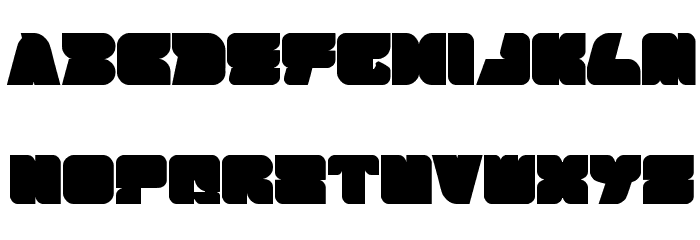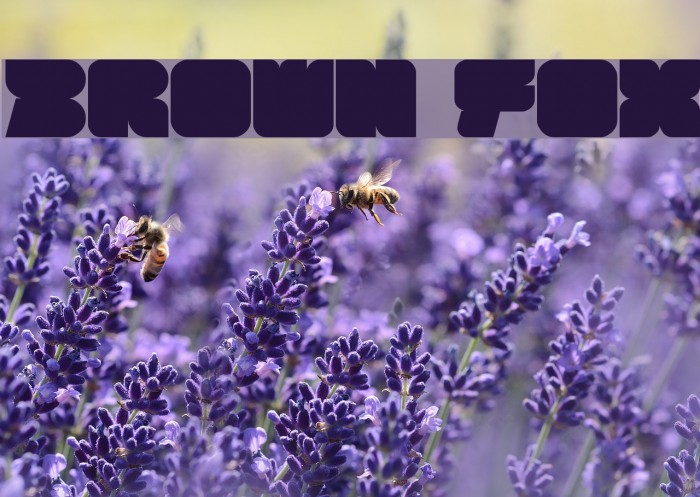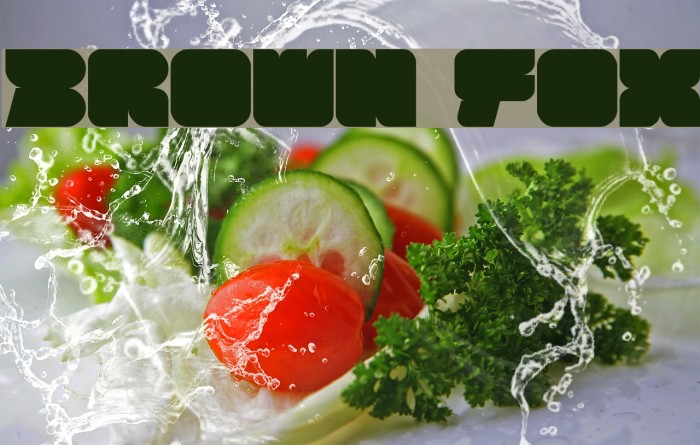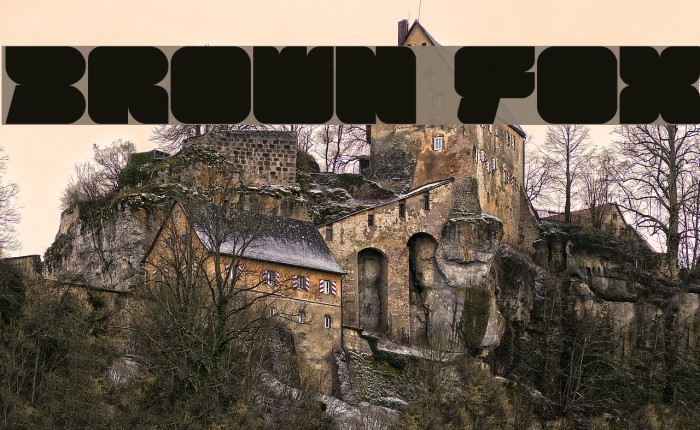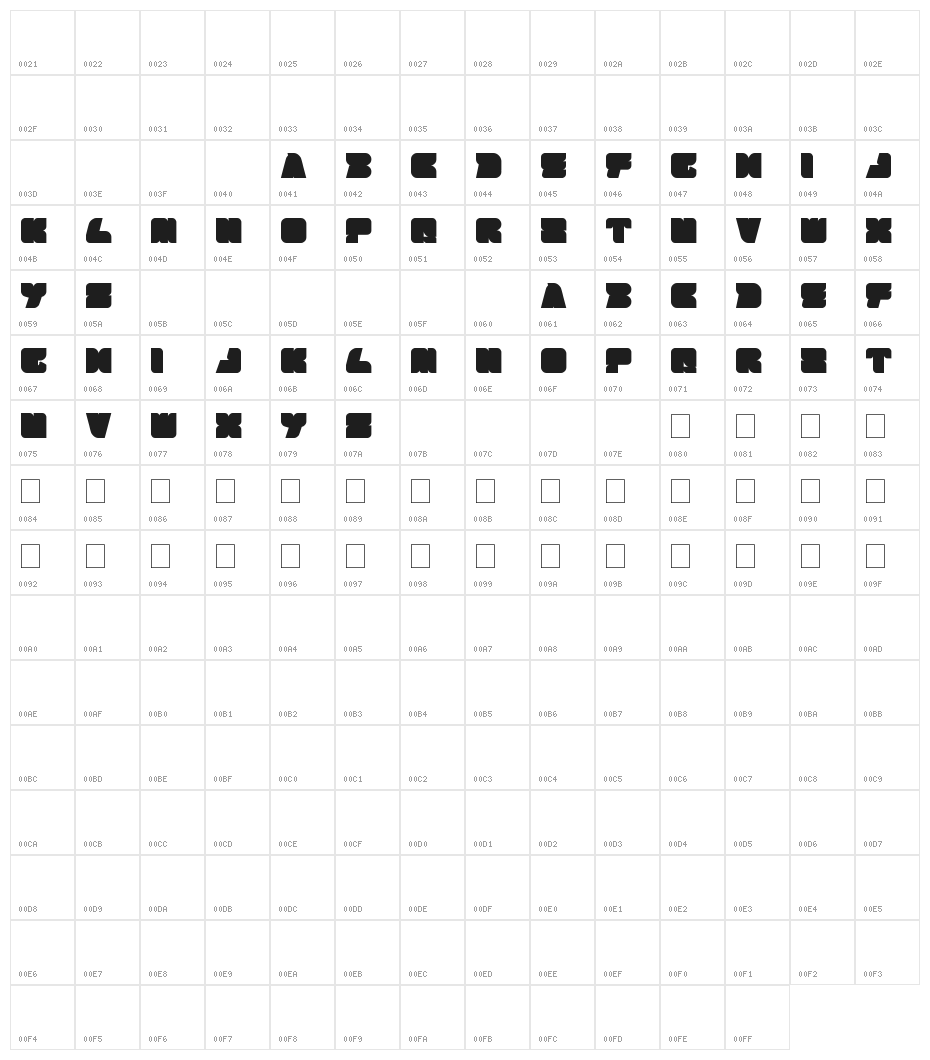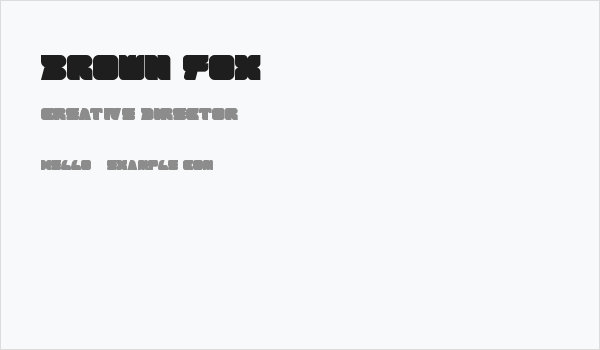
BROWN FOX Font
This font features a bold and blocky design with a distinctly modern and geometric style. Each character is crafted with thick, uniform strokes that create a strong visual impact. The letters are tightly spaced, enhancing the compact and robust appearance. The font's unique design includes sharp angles and straight lines, giving it a futuristic and industrial feel. It is highly legible and stands out due to its solid and substantial form, making it ideal for attention-grabbing headlines and displays.
- Proposed Projects: This font is perfect for projects that require a strong visual impact, such as posters, logos, branding materials, and signage. Its bold design makes it suitable for modern and futuristic themes.
- Character Spacing: Tight